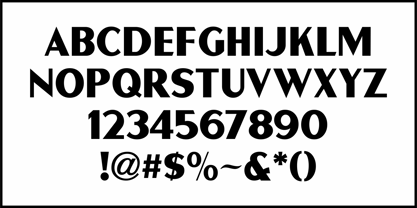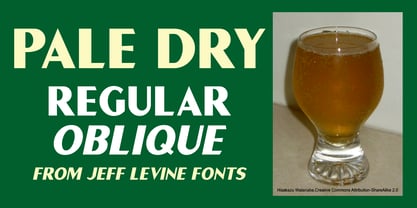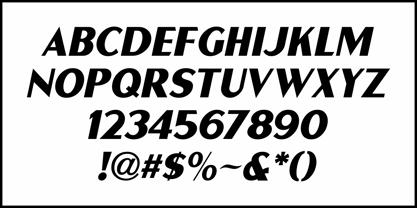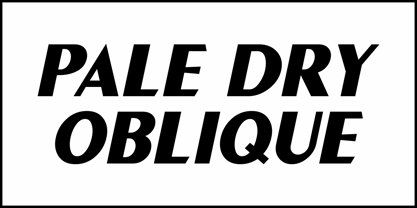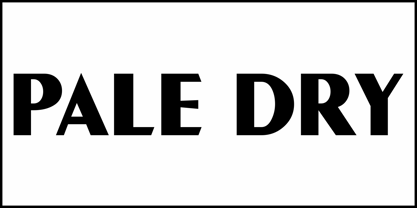
Pale Dry JNL
by Jeff Levine
What started out as a custom type design for a client based on a 1940s-era metal sign advertising Adanac Ginger Ale evolved into Pale Dry JNL, which is available in both regular and oblique versions. The hand lettering is a bold sans serif 'thick and thin' design - a lettering style almost obligatory of the Art Deco era. For a time, Adanac Ginger Ale was a direct competitor to Canadry Dry, and its name is actually 'Canada" spelled backward. "Pale Dry" is a less sweet, lighter version of more traditional ginger ale.